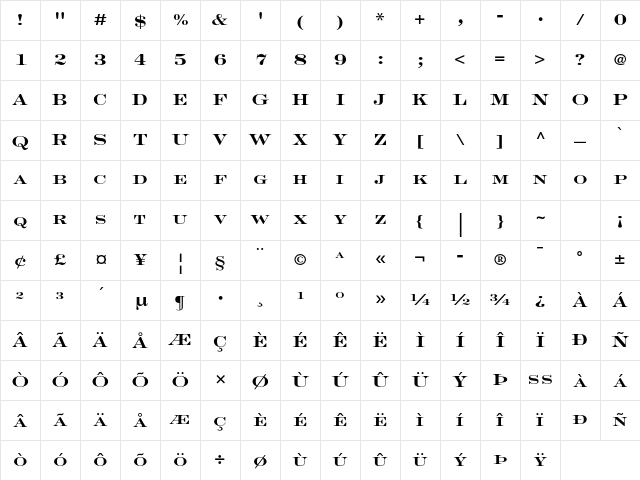
Engravers LT Std Bold Face
Style: Bold Face
Designer: Linotype Staff
Complete Engravers LT Std Bold Face glyph index. Displaying only characters natively supported by Engravers LT Std Bold Face font.
Design Context for Engravers LT Std
Engravers LT Std is a composed and adaptable typeface that performs quietly and consistently across a wide range of design contexts. Its bold stroke weight gives it real presence on the page.